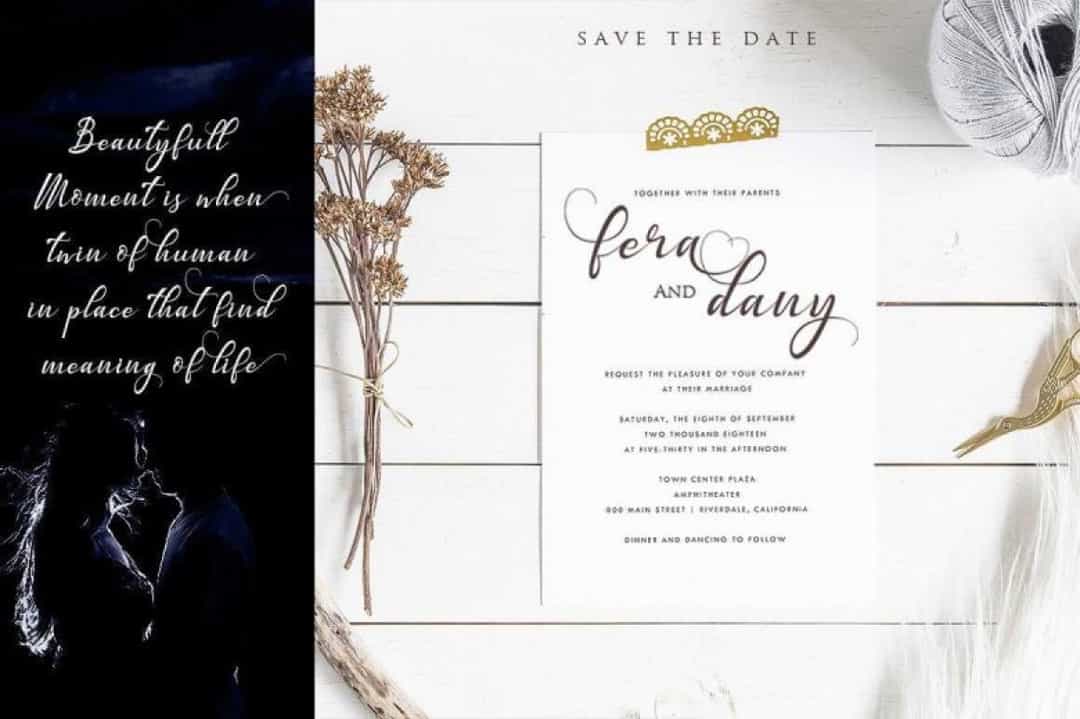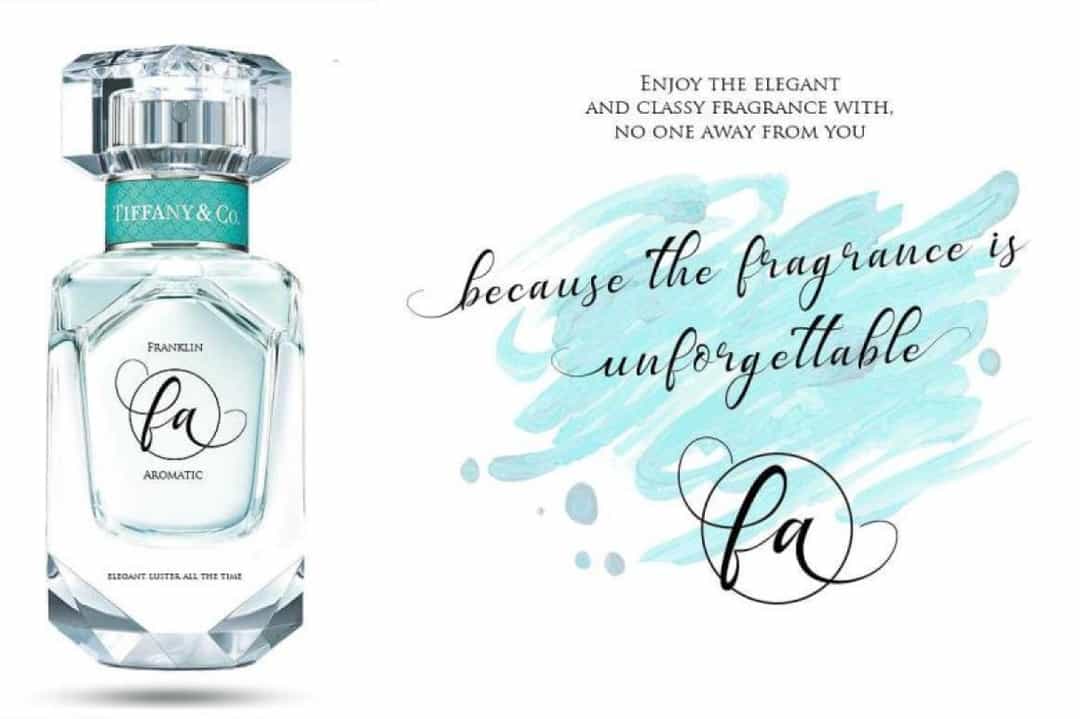
Introducing the elegant new Bestalia Script Best for those who are in search of a font that has a touch of elegance and modernity to their designs, this is the font for you! Bestalia was built with OpenType and True Type features and includes beginning and ending swashes, alternate swash characters for most lowercase letters, numbers, punctuation, alternates, ligatures and it also supports other languages 🙂